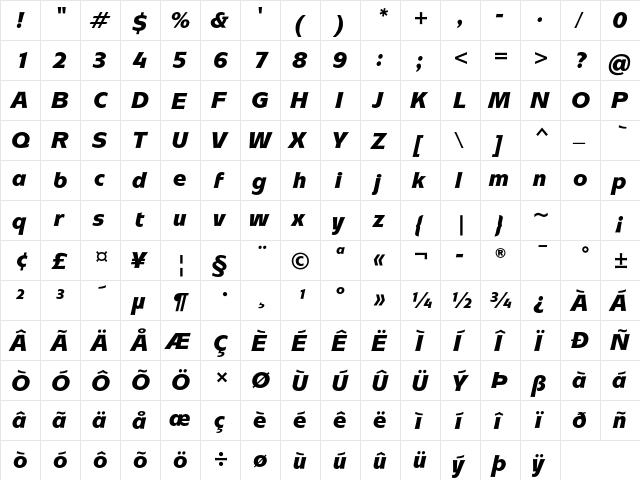
Mixage ITC Std Black Italic
| Designer | Aldo Novarese |
Design Context for Mixage ITC Std Typeface
Mixage ITC Std takes a measured approach to typography — its balanced proportions and neutral character make it a reliable workhorse for both digital and print work. Its italic angle brings a sense of urgency and motion to the letterforms.
Pro Tip: Use Mixage ITC Std for emphasis, pull quotes, and subheadings where its slanted energy can add rhythm to the layout.